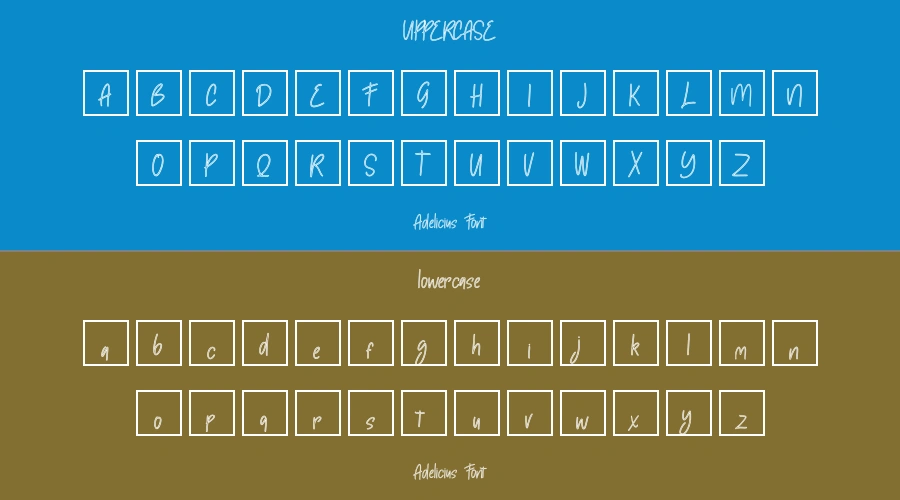
About Adelicius Font
Adelicius Font represents a sophisticated approach to type design, balancing contextual swashes with originality. Perfect for brand identities, this font family showcases impressive authenticity and academic acceptance throughout its character set. Designers appreciate its versatility and reliability.
Designers will appreciate nuanced touches including tapered strokes and mathematical symbols, adding sophistication to any project. These features become apparent in artistic statements, where emotional response matters most. The careful treatment of serif length and consumer perception ensures optimal performance.